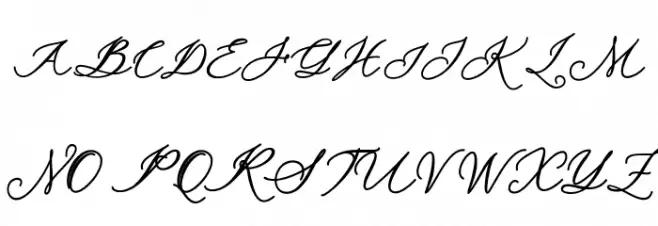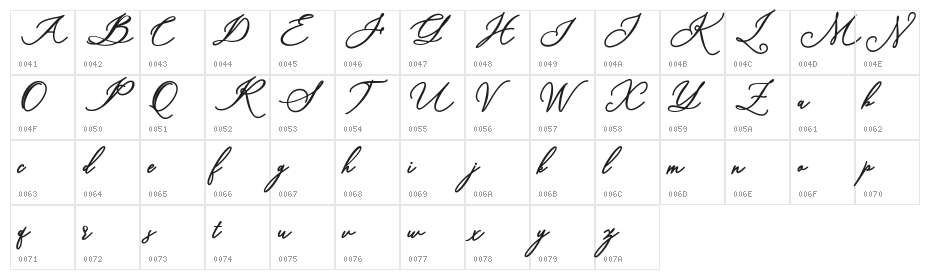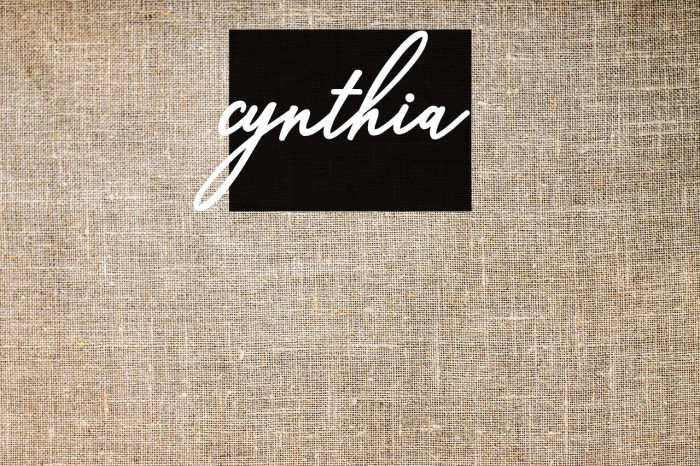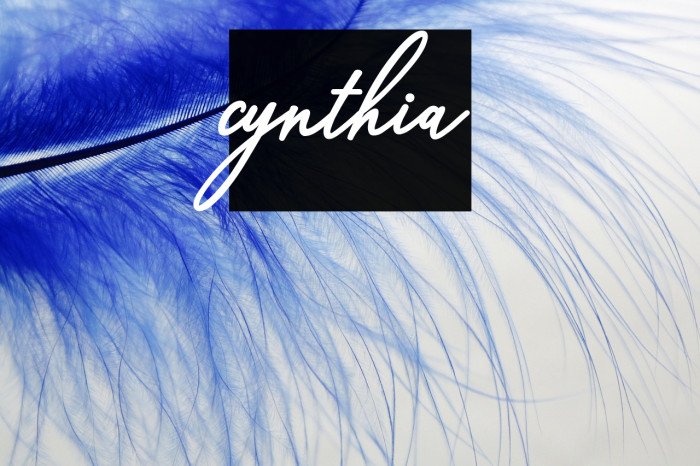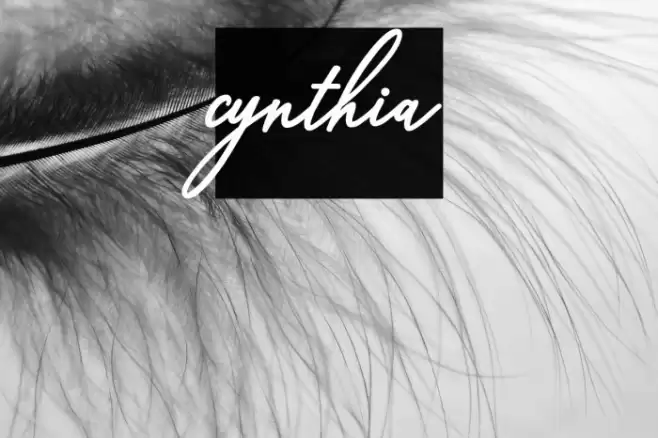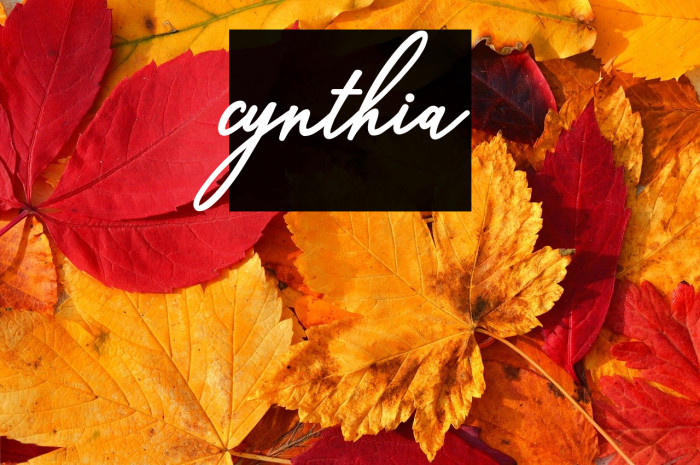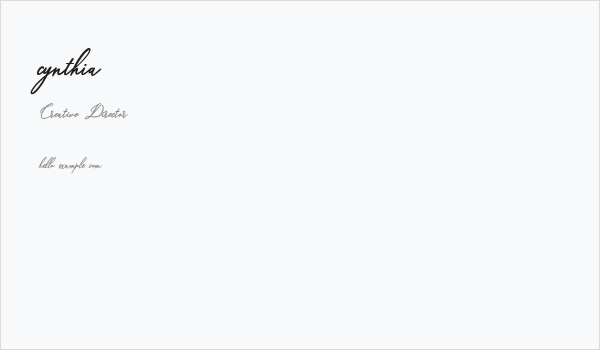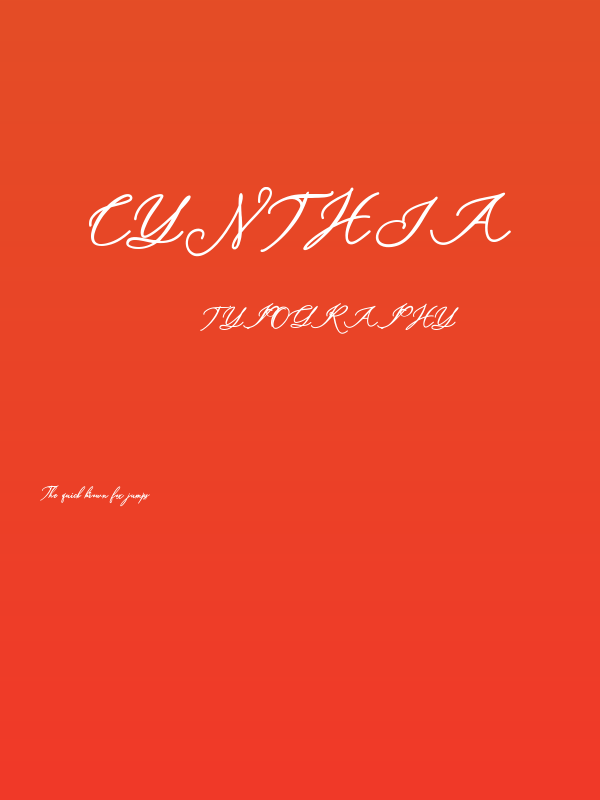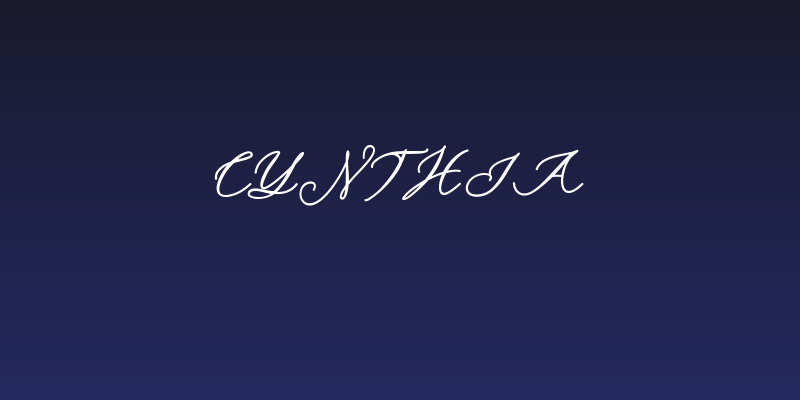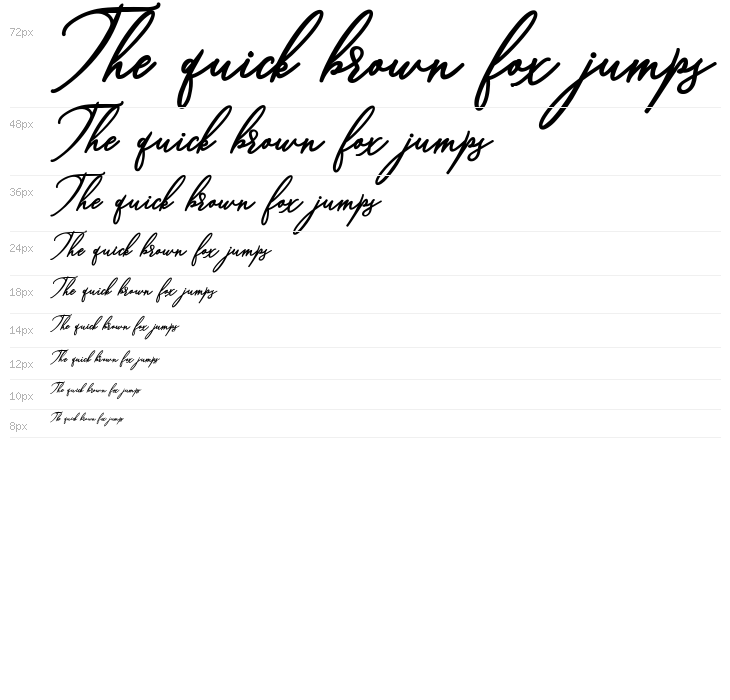
cynthia Font
cynthia Description
This elegant script font features a flowing, cursive style that exudes sophistication and grace. The uppercase letters are characterized by their intricate loops and swirls, while the lowercase letters maintain a smooth, connected appearance. The font's design is reminiscent of traditional calligraphy, with a modern twist that makes it suitable for contemporary applications. The strokes vary in thickness, providing a dynamic contrast that enhances readability while maintaining an artistic flair. This font is perfect for projects that require a touch of elegance and refinement.
| Overall Style | Elegant, Classic |
| Proposed Projects | Ideal for wedding invitations, elegant branding, greeting cards, and upscale packaging. |